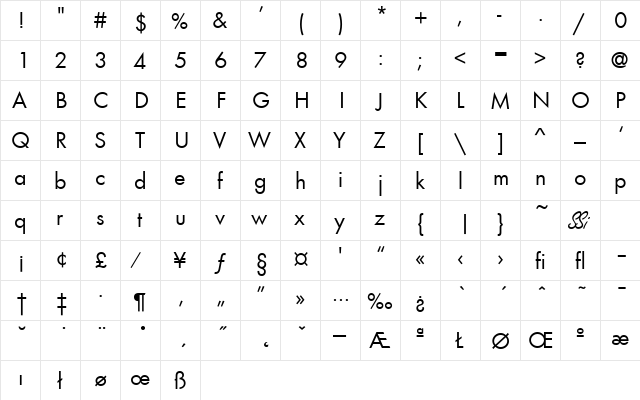
Kudos Roman SSi Roman
Design Context for Kudos Roman SSi Typeface
Kudos Roman SSi is a composed and adaptable typeface that performs quietly and consistently across a wide range of design contexts.